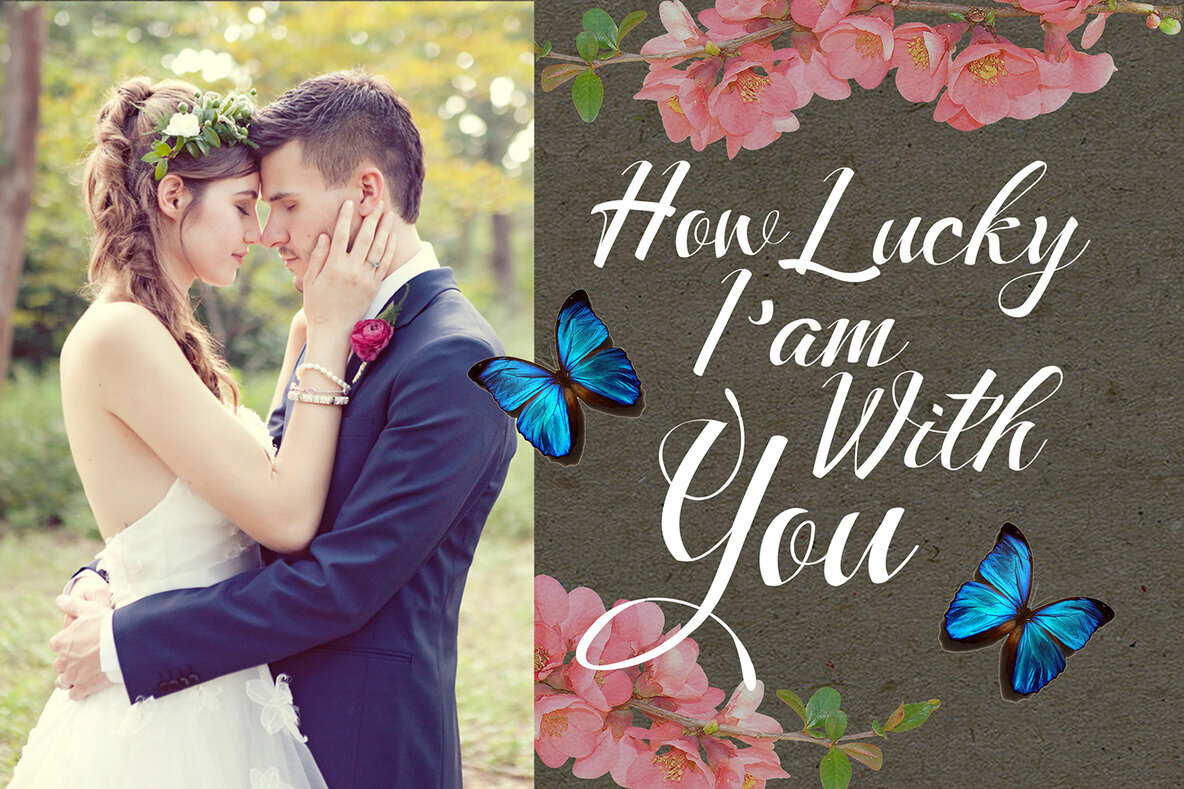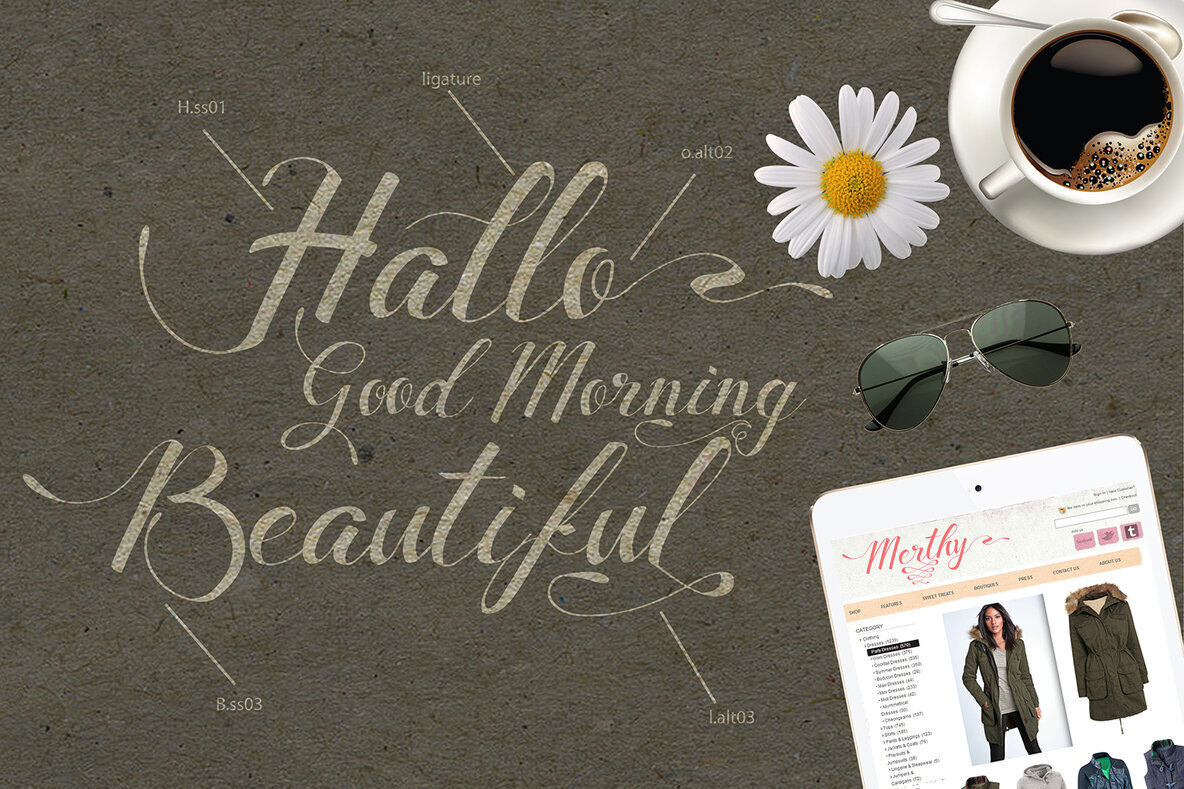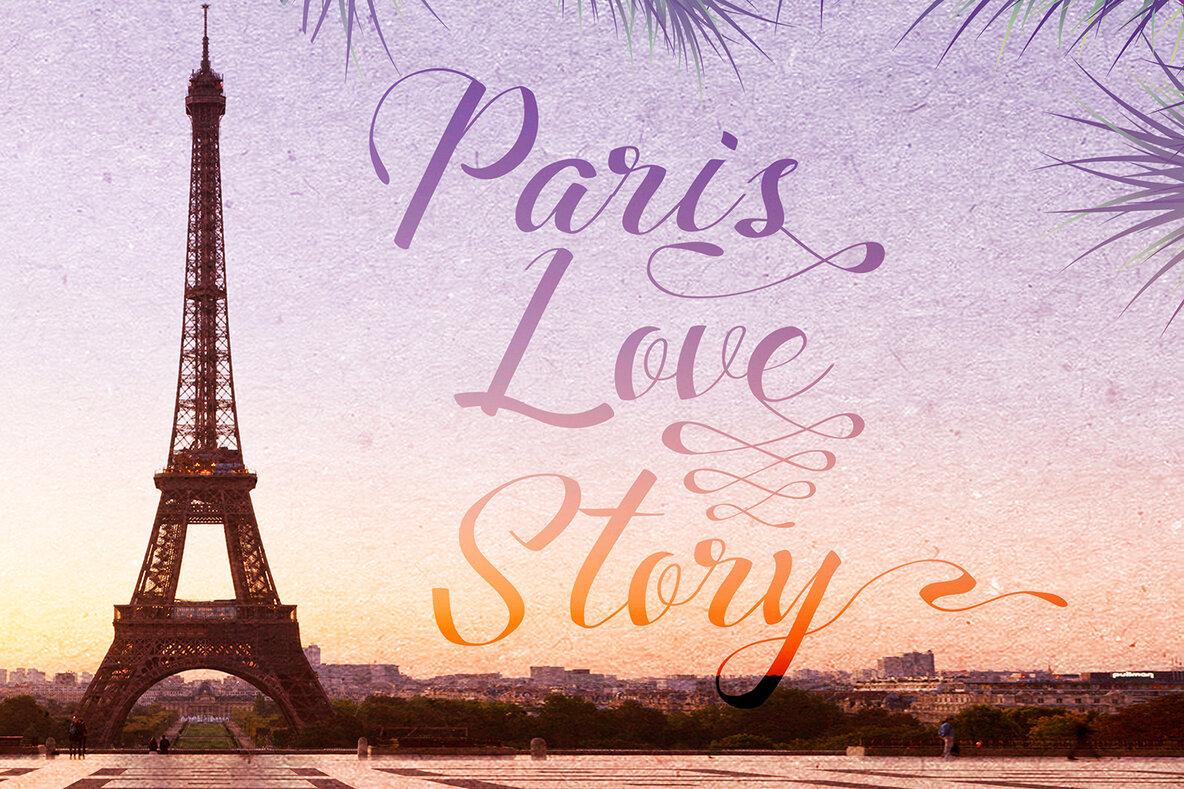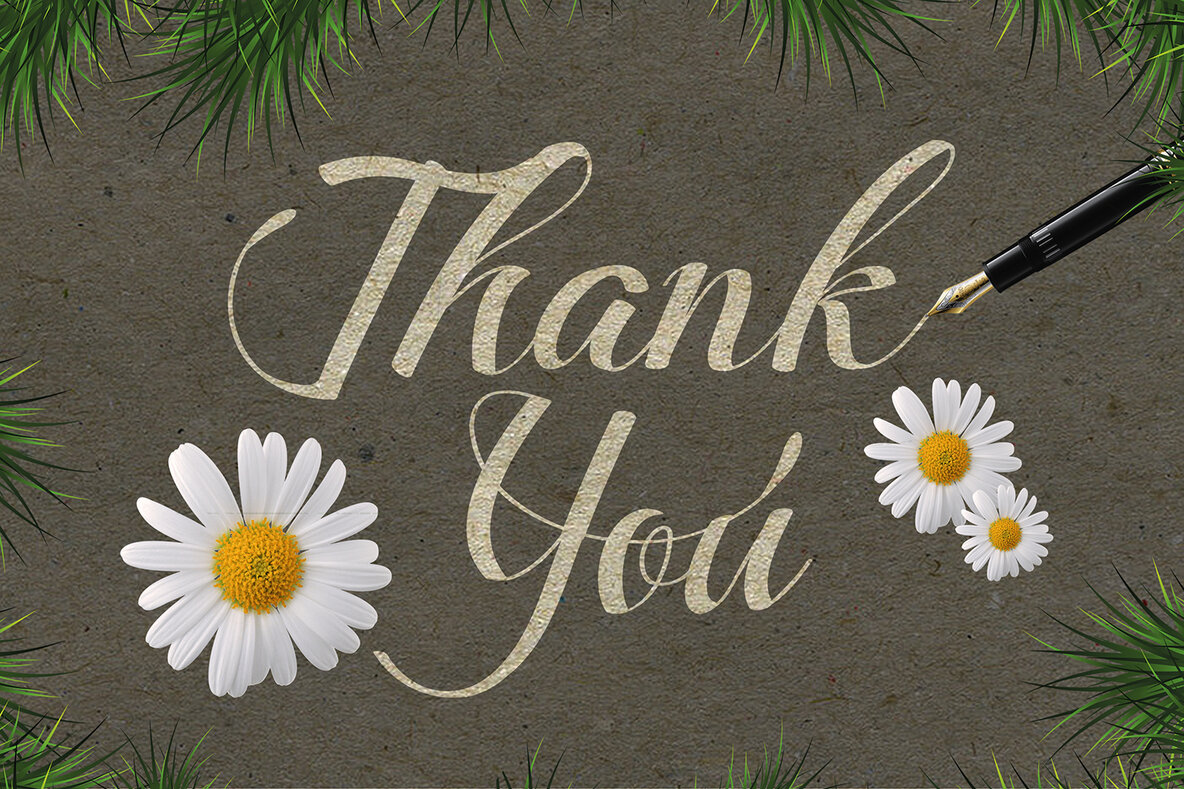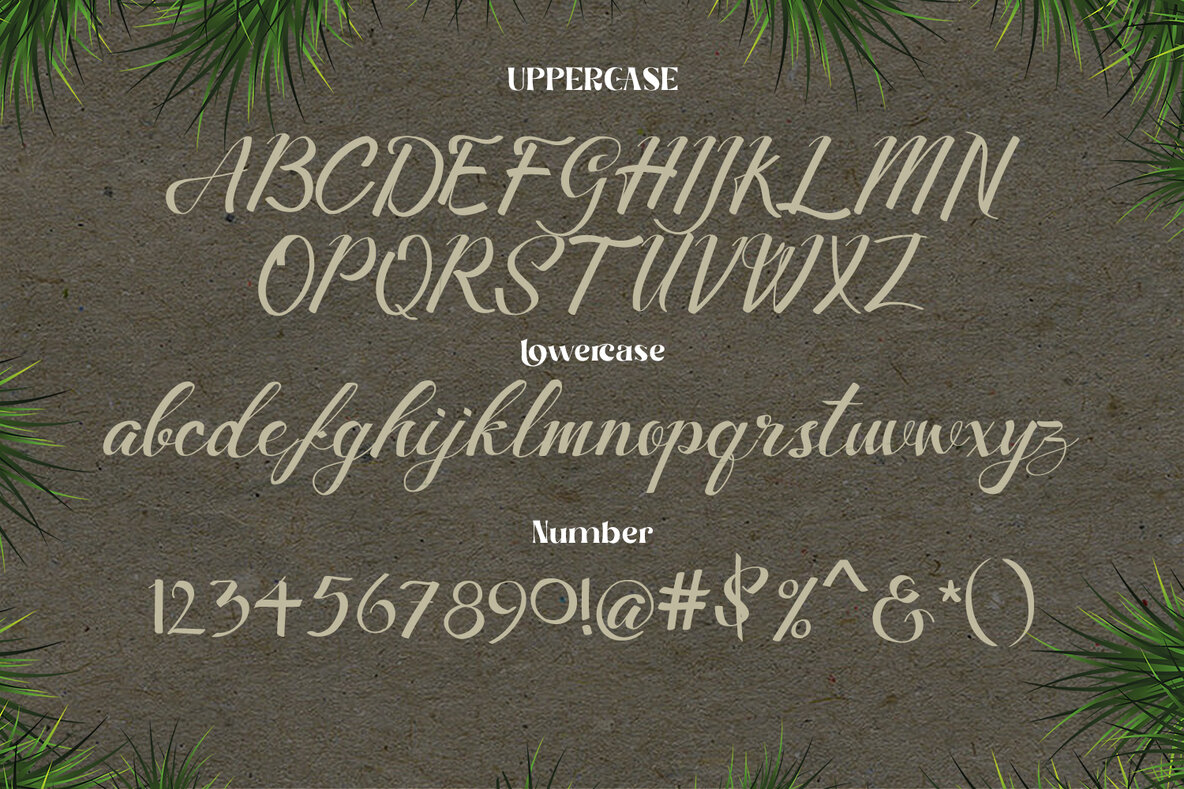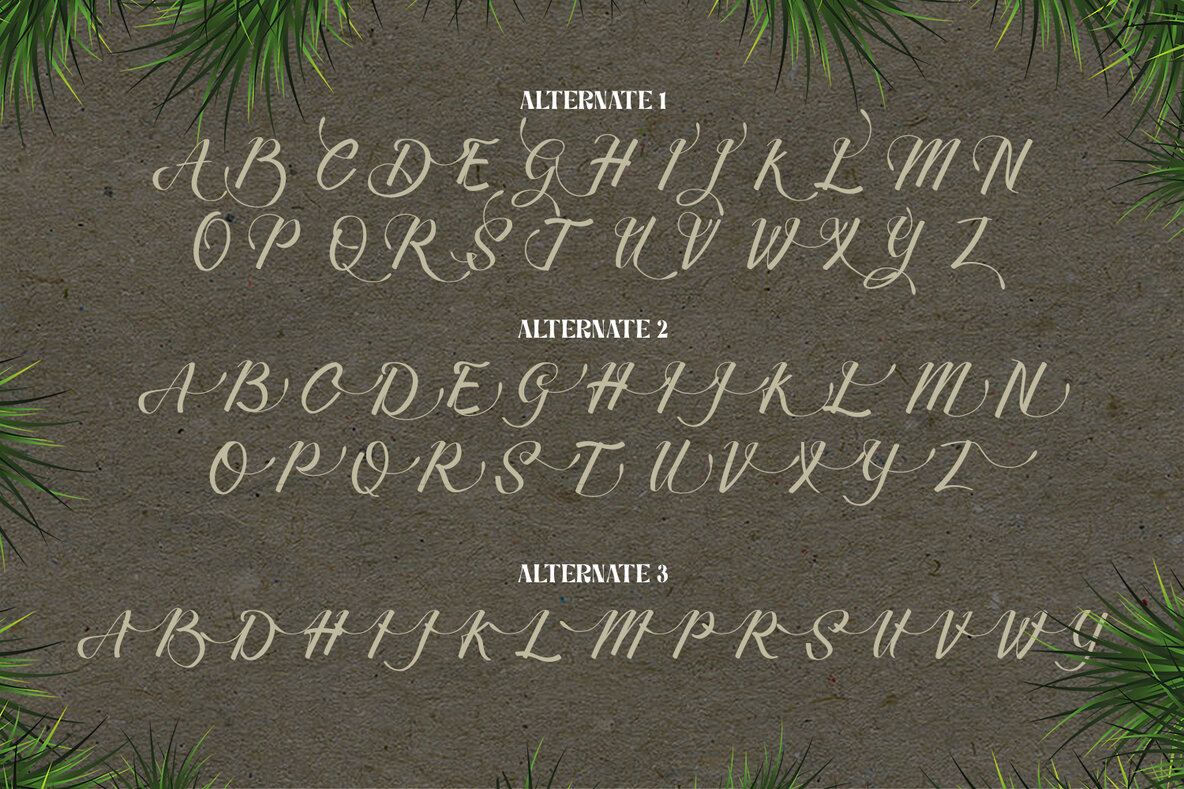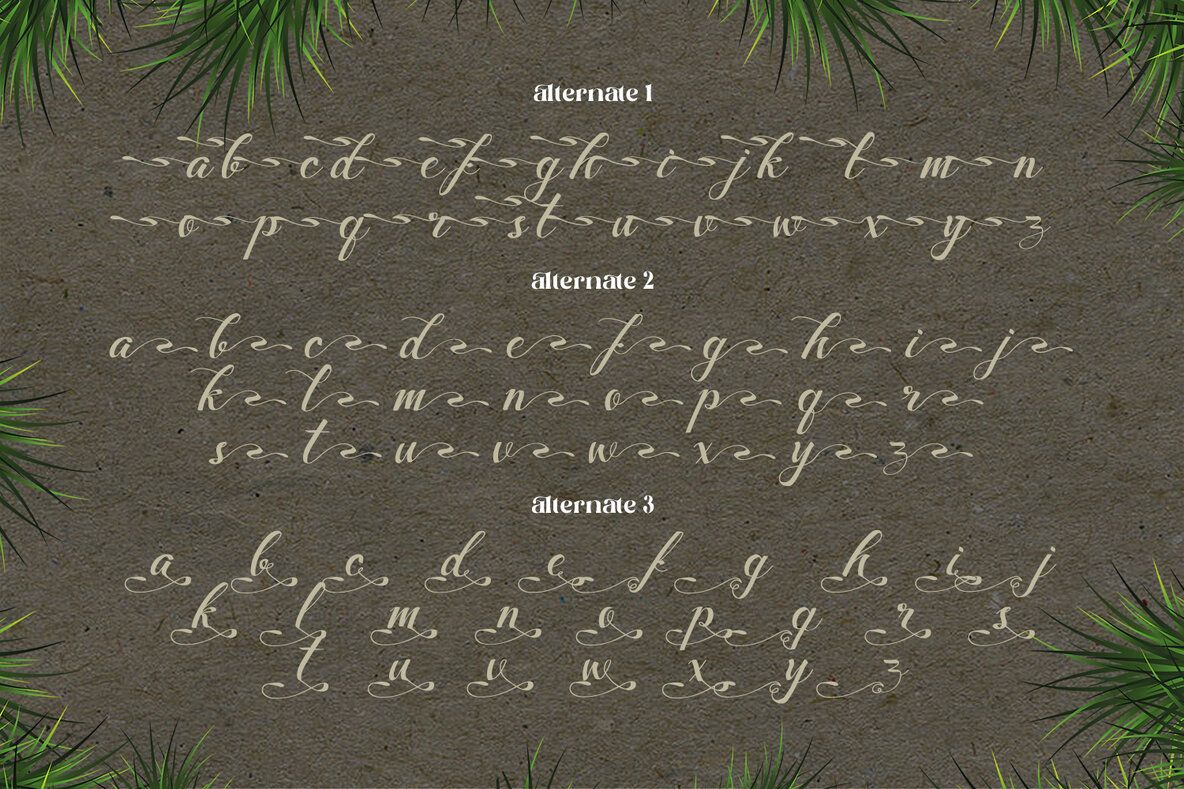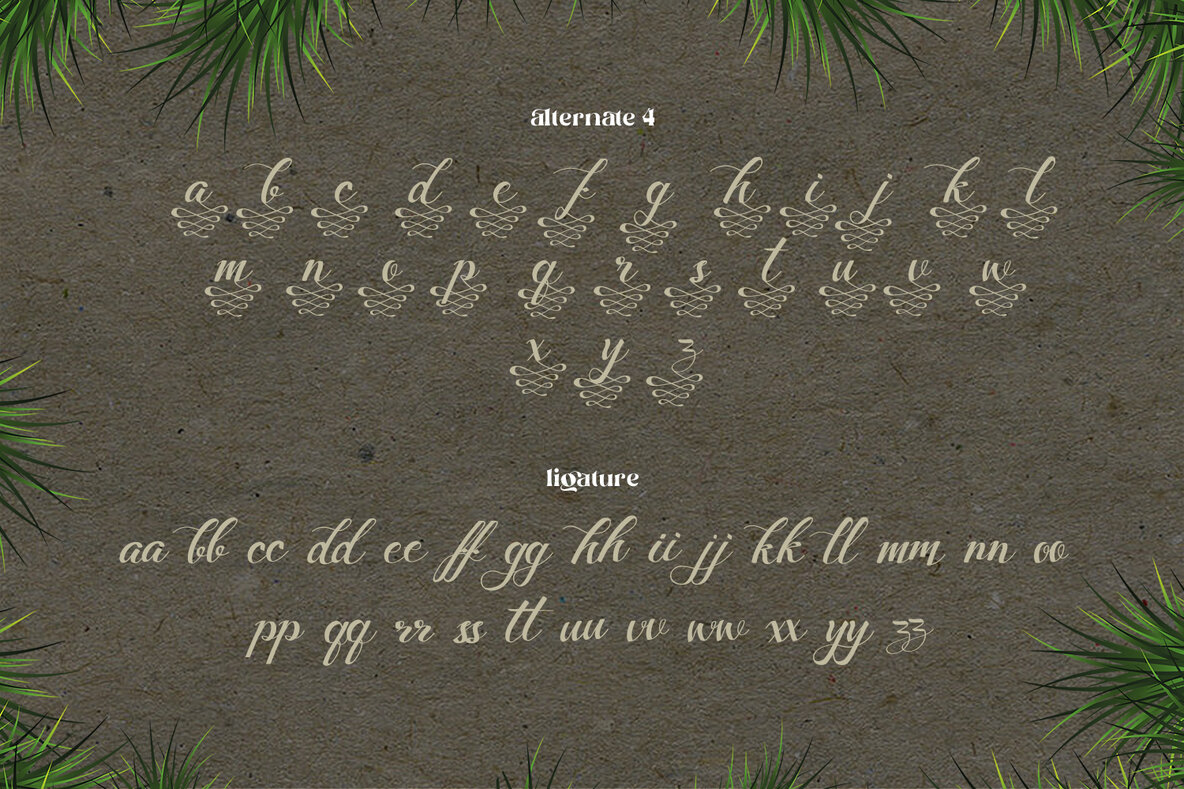
Merthy Font
Merthy Regular
Merthy Script Font by madeDeduk offers a refreshing take on playful typography, making it an excellent choice for diverse design projects. Featuring over 350 glyphs, it provides designers with substantial creative flexibility. The unique character of this script font ensures your text stands out in a memorable way.Merthy: Dynamic Script Font with Character